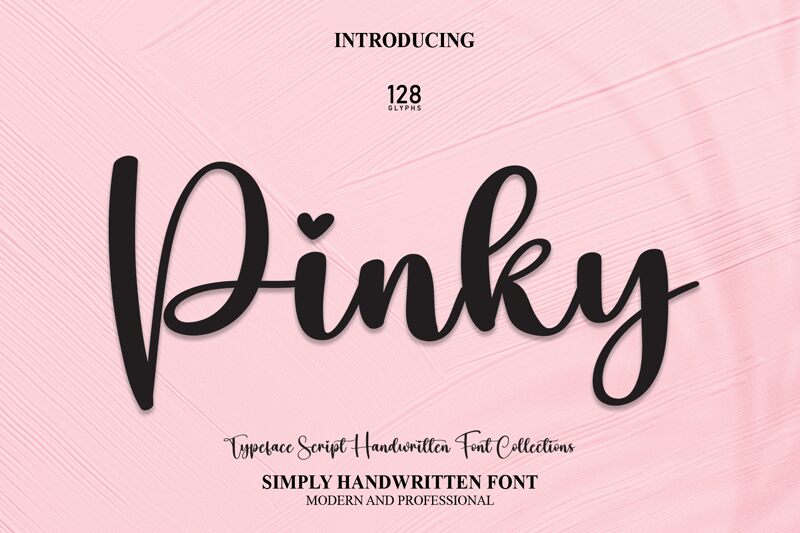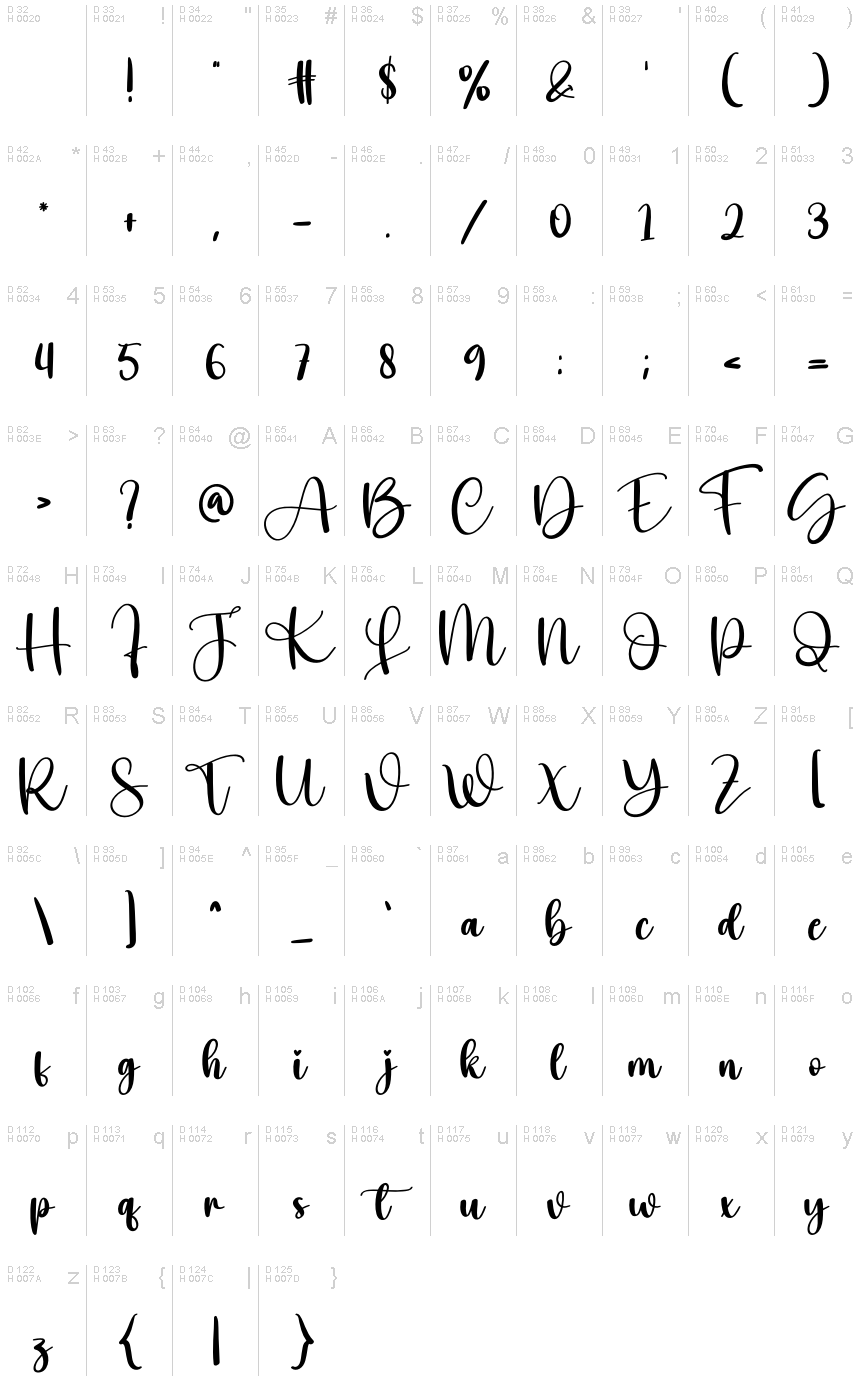
Pinky
Meet Pinky, a breathtaking feminine calligraphy font designed by Scratchones. With its delicate brush strokes and elegant curves, Pinky adds a touch of sophistication to any project.
This versatile font is perfect for wedding invitations, greeting cards, and branding materials for beauty salons or fashion boutiques. Its graceful charm also makes it an excellent choice for blog headers, social media graphics, and logo designs. Let Pinky captivate your audience with its timeless beauty and create a lasting impression in all your creative endeavors.